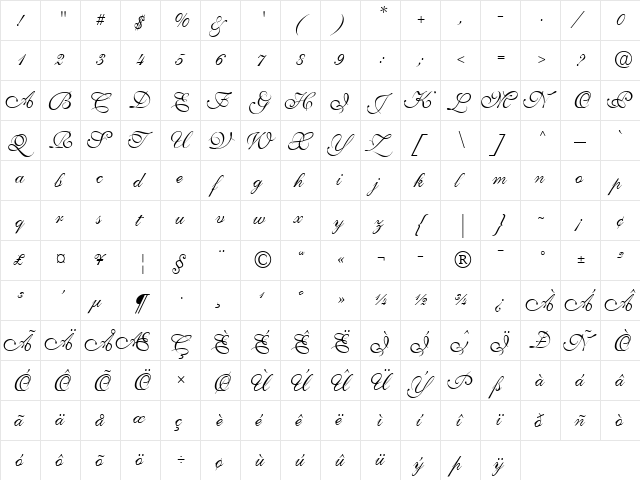
Allegretto Script Two Regular
Allegretto Script Two flows with the natural rhythm of handwritten lettering, making it ideal for designs that call for warmth and personal expression.
Font Pairing: Combine Allegretto Script Two with a simple geometric sans for maximum contrast — the tension between flowing curves and clean structure is a classic typographic pairing.
Pro Tip: Use Allegretto Script Two for short runs of text — names, titles, or taglines. Extended body copy in script faces tires the eye quickly.